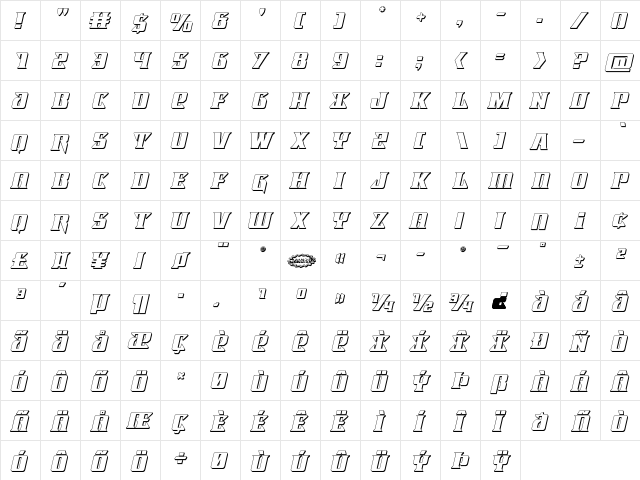
Lifeforce 3D Italic Italic
Design Context for Lifeforce 3D Italic Typeface
Lifeforce 3D Italic has the bold swagger of sports branding: strong, assertive letterforms designed to dominate headlines and jerseys alike. The dynamic lean of this cut emphasises speed and emphasis in any layout.
Built for sports team identities, athletic apparel, event posters, and high-energy promotional material.
Font Pairing: Use alongside a condensed or geometric sans for supporting copy — keep the pairing bold, functional, and free of ornament.
Pro Tip: Lifeforce 3D Italic thrives on contrast — try it large, bold, and tight against a clean background for maximum visual impact.